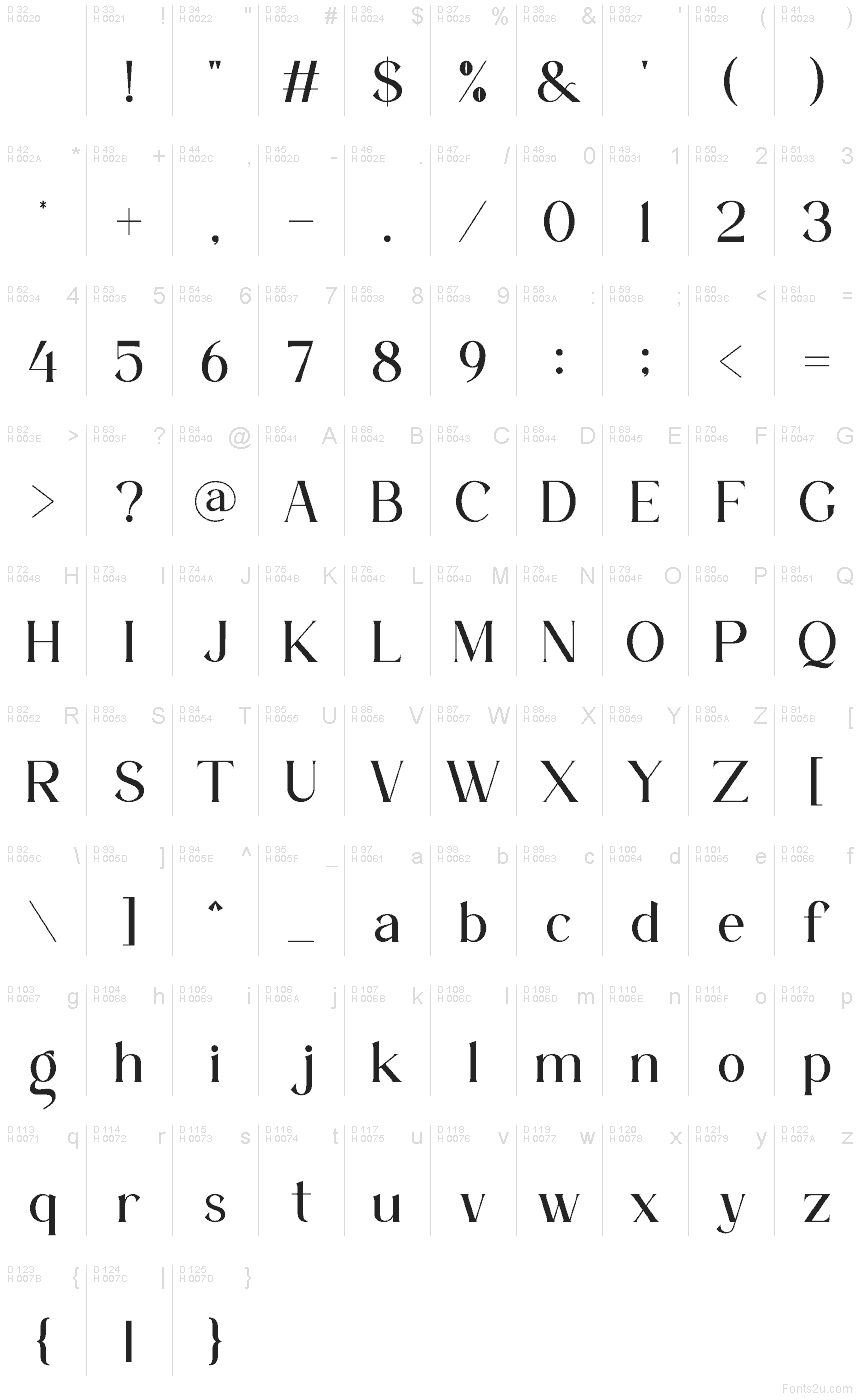
Evolind
Evolind font by ErmediaStudio is a free high-contrast serif font. Built around sculpted tension—razor-thin hairlines meeting inky, wedge-like strokes—it balances drama and restraint. The letters feel carved rather than drawn, with crisp edges and velvety curves that bring instant polish to a page without shouting.
Using Evolind, headlines acquire a runway-ready presence that shines on fashion branding, editorial covers, luxury packaging, beauty campaigns, event posters, and confident wordmarks. This free font holds space beautifully at large sizes; pair it with a quiet geometric sans for body copy, or add a touch of letterspacing to let its high-contrast rhythm breathe.